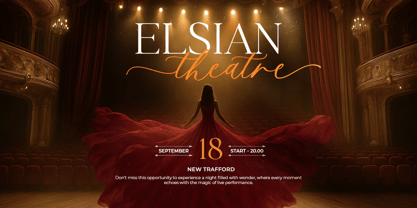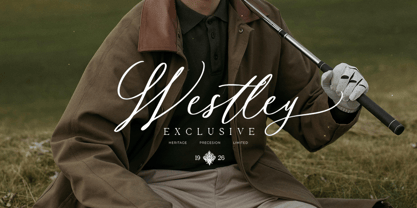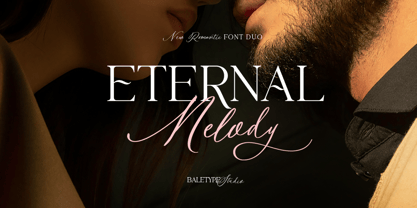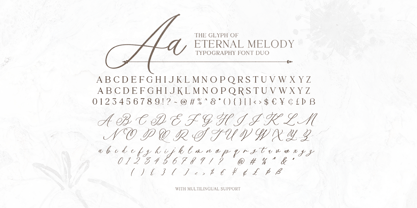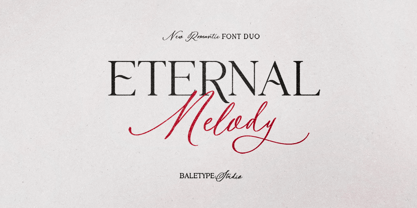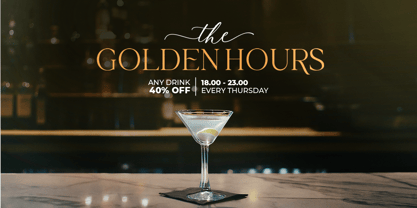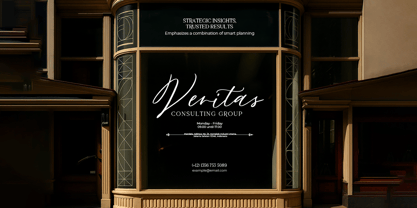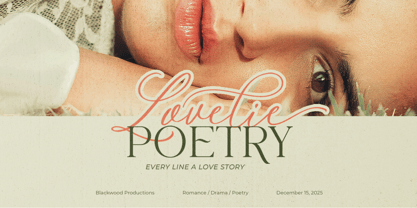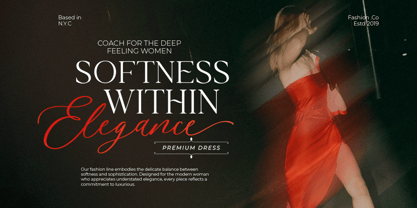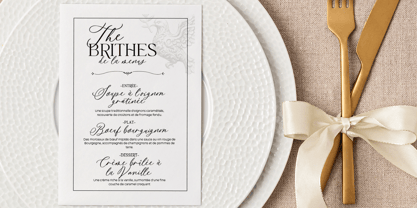
Eternal Melody
by Bale Type
The Eternal Melody Font Family was designed by Dzikrul Aulia and published by Bale Type. Eternal Melody contains 2 styles and family package options. More about this family
Eternal Melody is a romantic and versatile font duo that combines a classy serif with a graceful handwritten script, creating a timeless typographic pairing for a wide range of design projects. Perfect for branding, logos, wedding invitations, quotes, packaging, and editorial use, this duo is designed to work beautifully together. The serif font features all caps characters, while the script font adds a personal, flowing touch with bunch of ligatures and stylistic alternates. Complete with multilingual support, Eternal Melody offers both beauty and functionality for modern and romantic designs alike. It's so perfect for valentine!